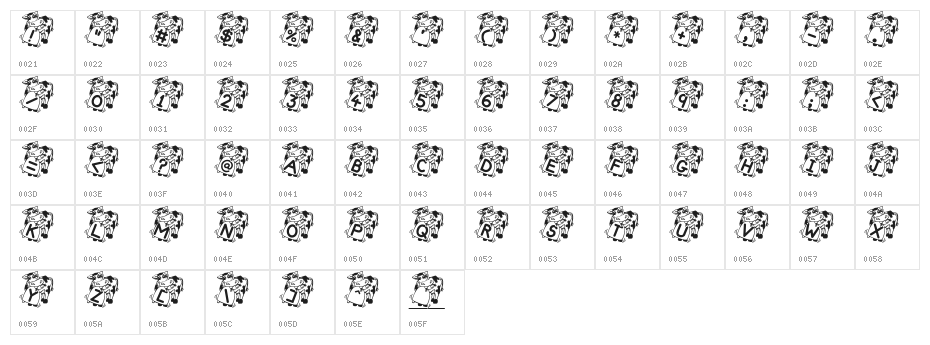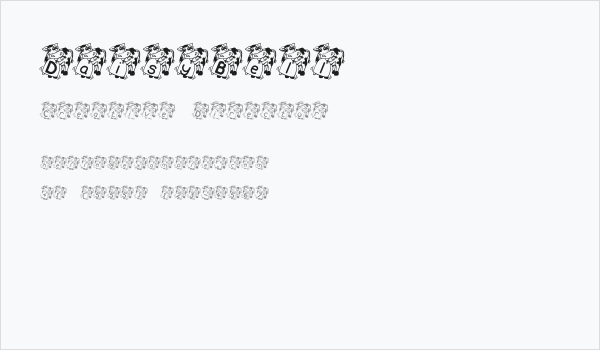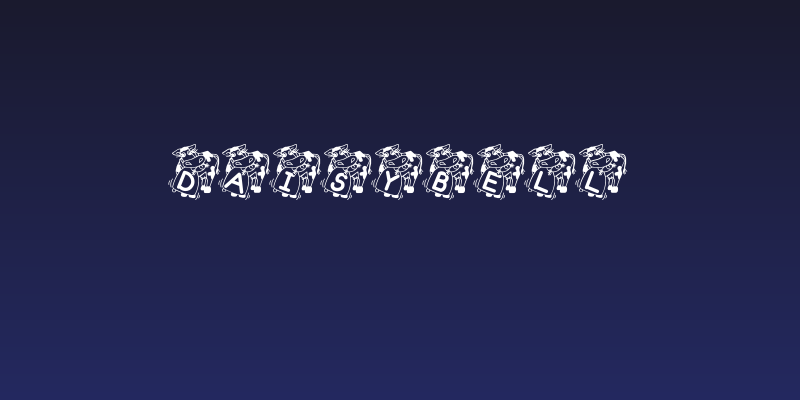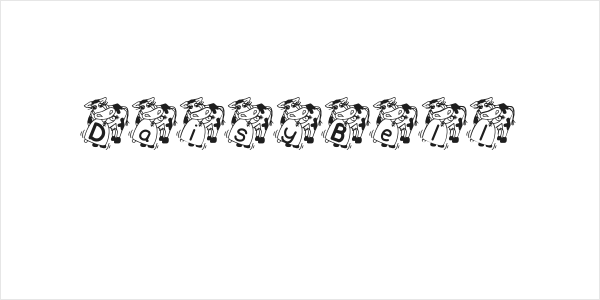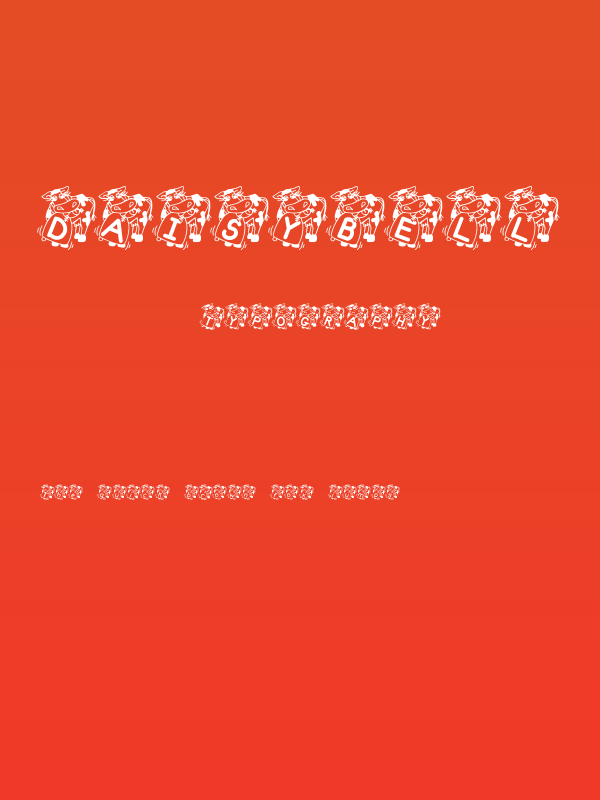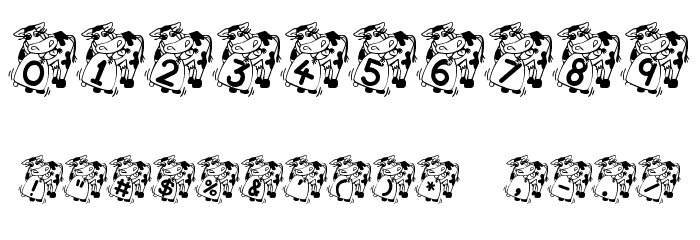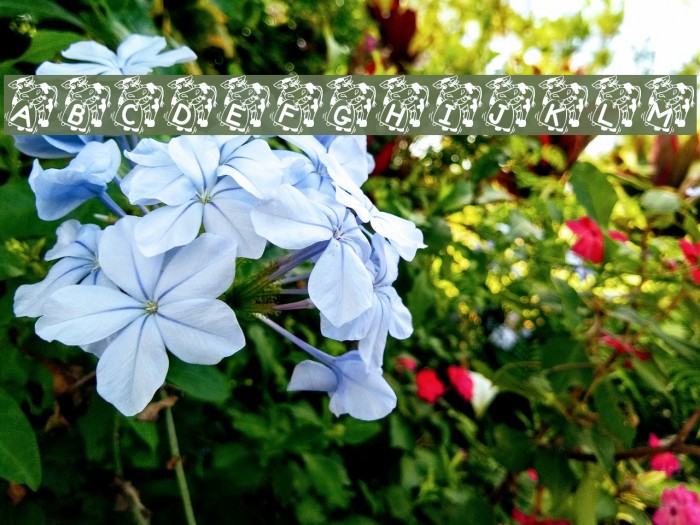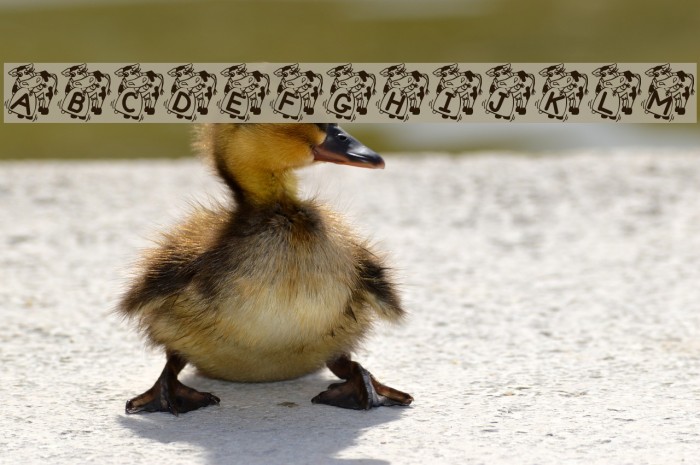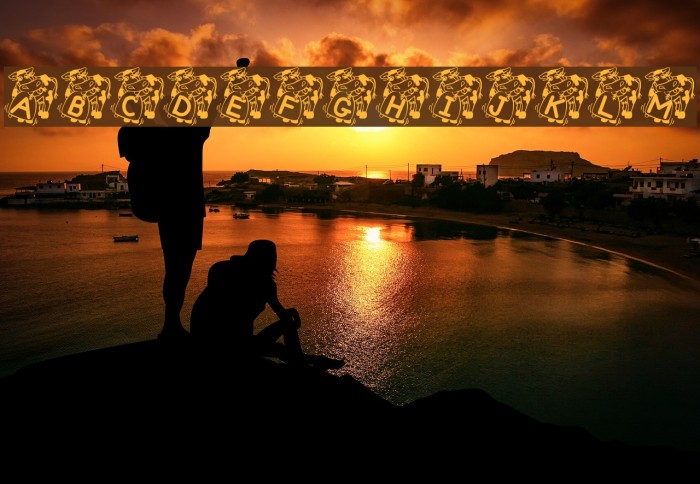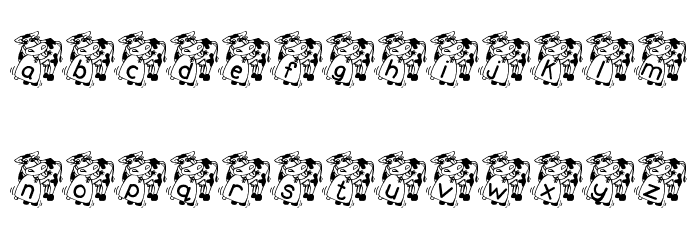
DaisyBell Font
DaisyBell Description
This playful and whimsical font features each character encased within a cartoonish cow design, giving it a unique and humorous appearance. The bold outlines and consistent cow motif make it stand out, while the characters themselves maintain a clear and legible form. The font is highly decorative, with each letter and number integrated into the cow's body, creating a cohesive and entertaining visual theme. This font is perfect for projects that require a fun and lighthearted touch, such as children's books, playful branding, or novelty items.
| Proposed Projects | Ideal for children's books, playful branding, novelty items, and any project needing a fun, lighthearted touch. |